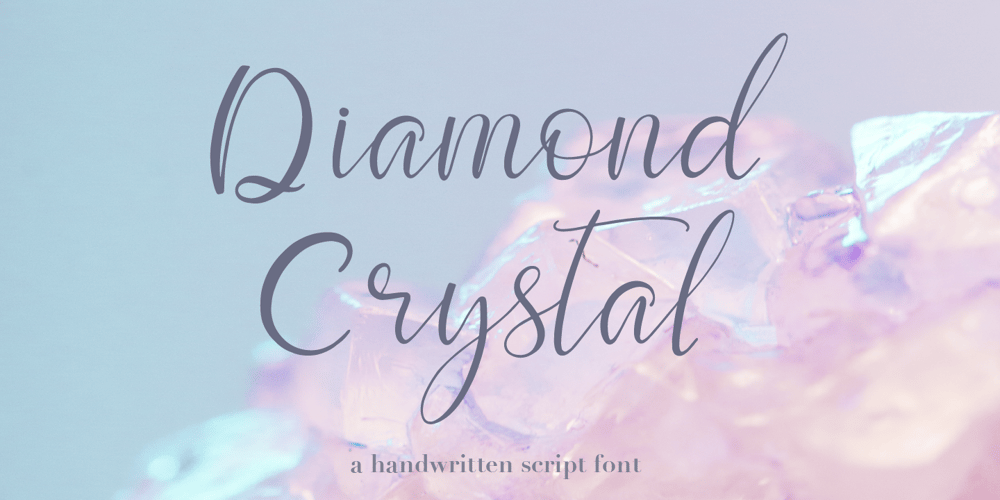
Diamond Crystal Font Family was designed by Elena Almazova-Dolzhenko and published by Almazova Dolzhenko. Diamond Crystal contains 1 styles and family package options. Diamond Crystal is made in modern calligraphy style and will look great for branding, fashion and wedding design.Diamond Crystal is a hand-drawn script font, it contains a full set of uppercase and lowercase letters, terminal letters and big set of ligatures helping to imitate handwriting.Multilingual support is included.Features: Uppercase & Lowercase Numerals & Punctuation Ligatures Terminal letters Multilingual support I hope you love it and if you have any question, feel free to contact me. Thanks.Lena (instagram @almaz_dolzhe)